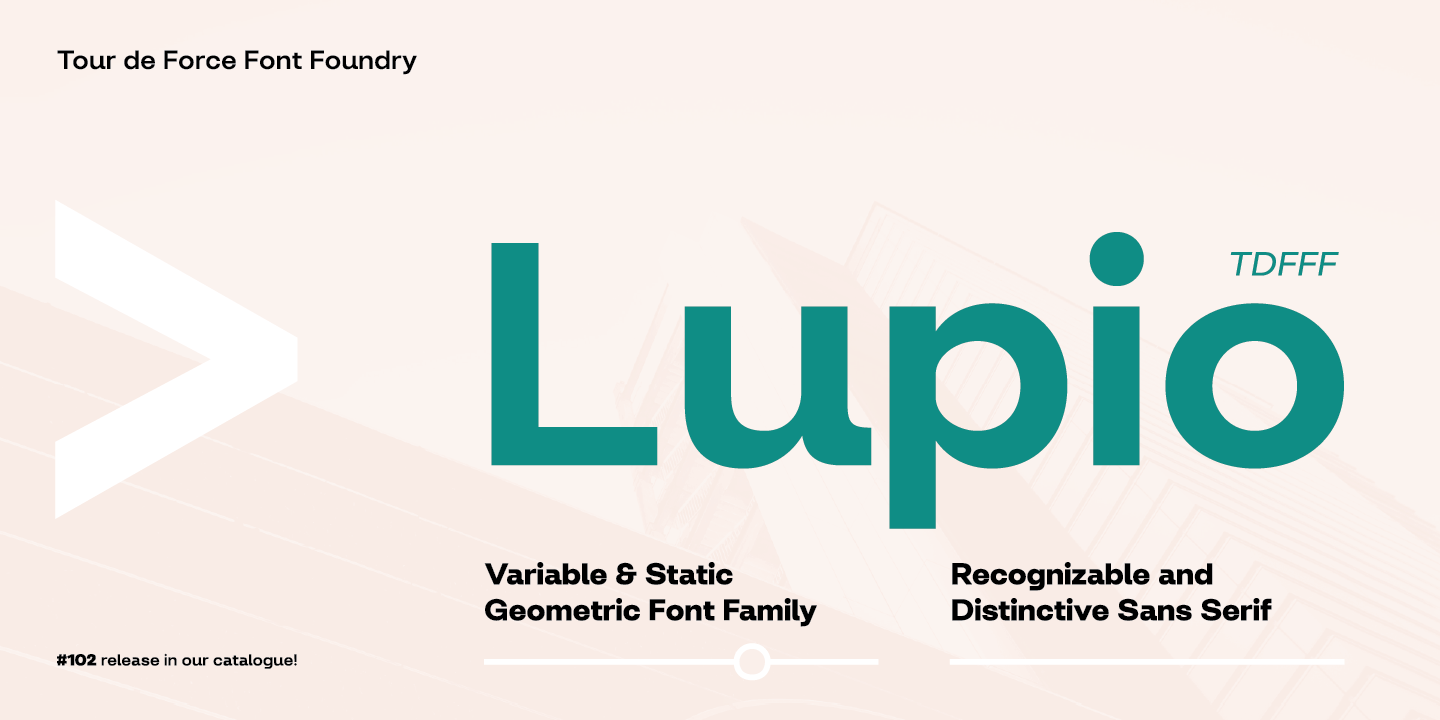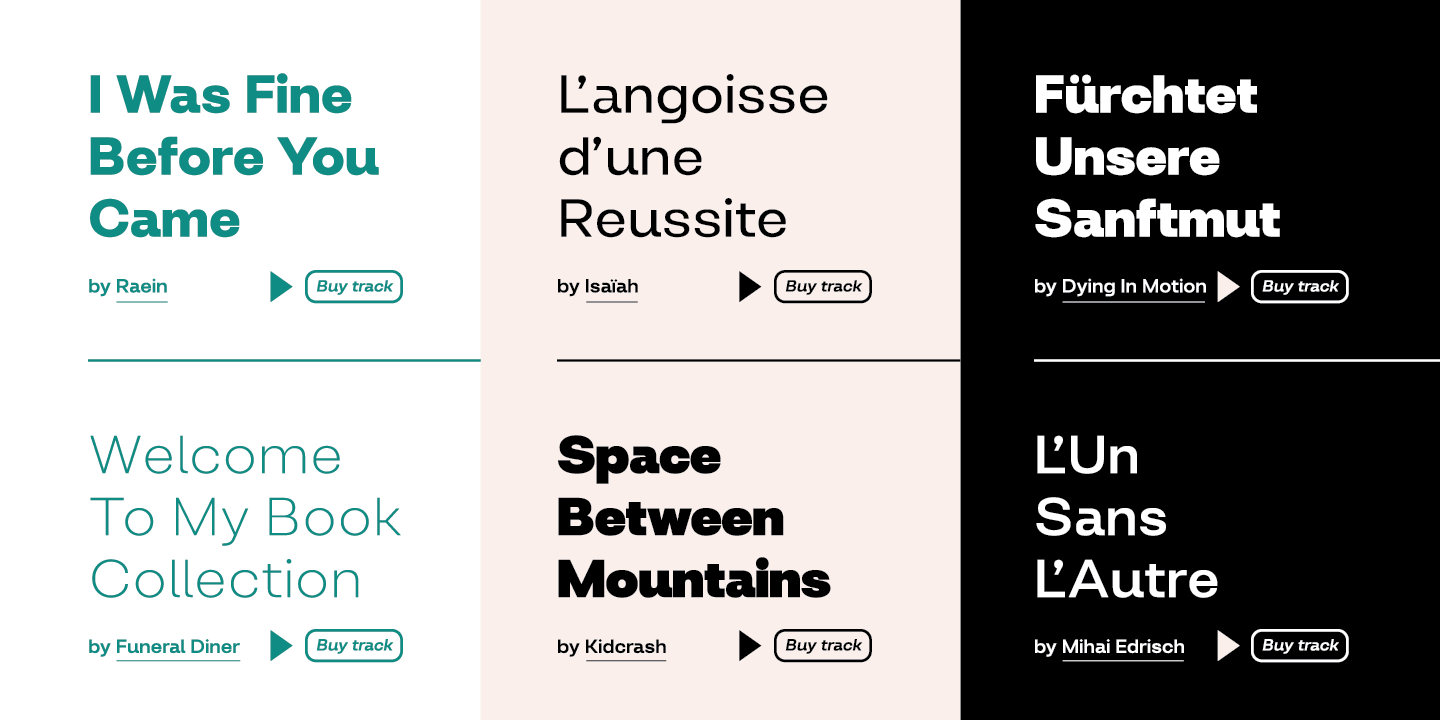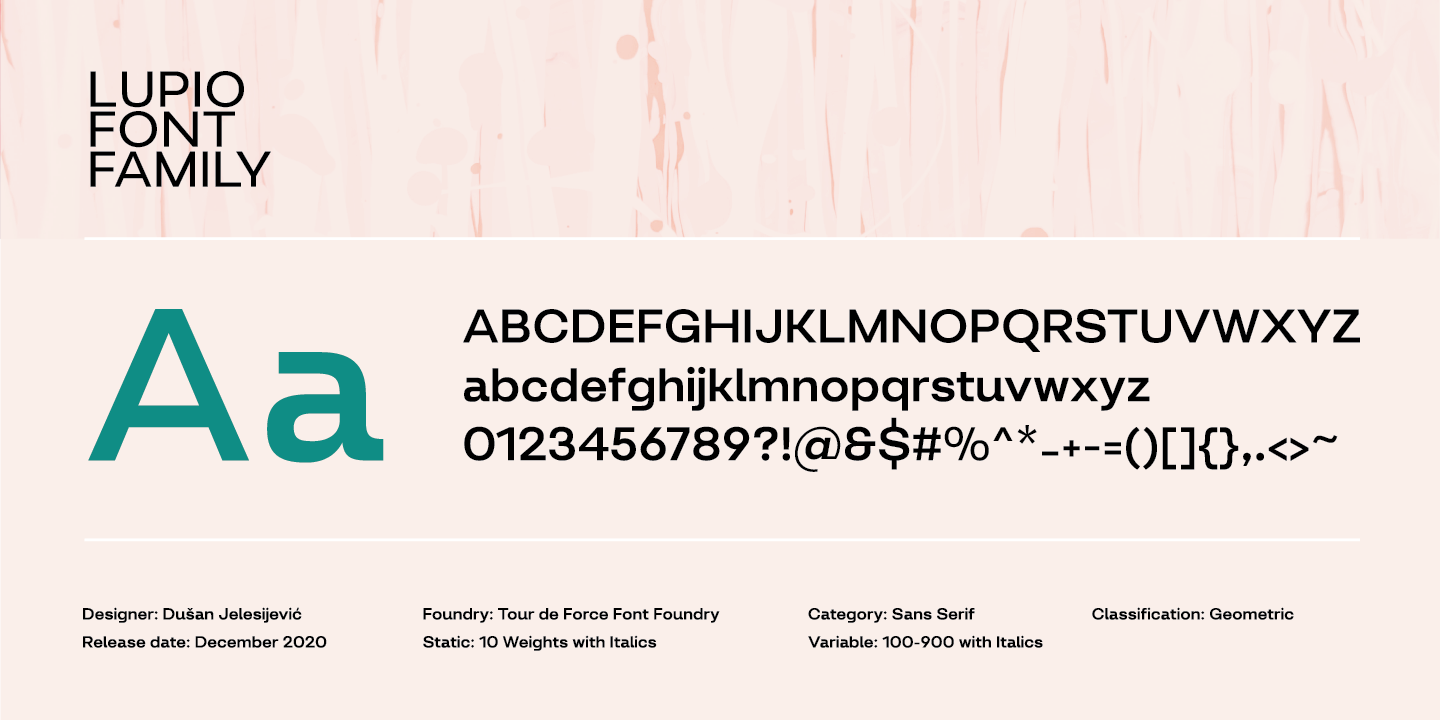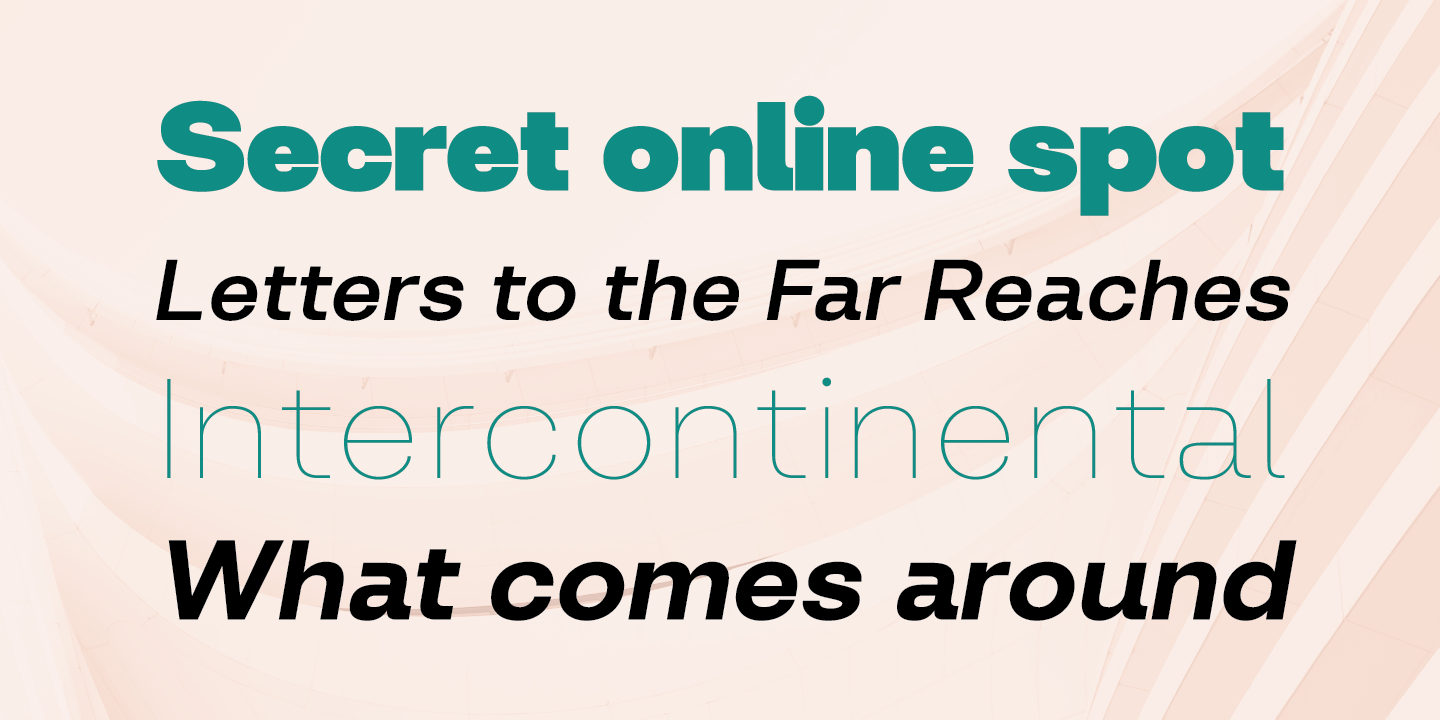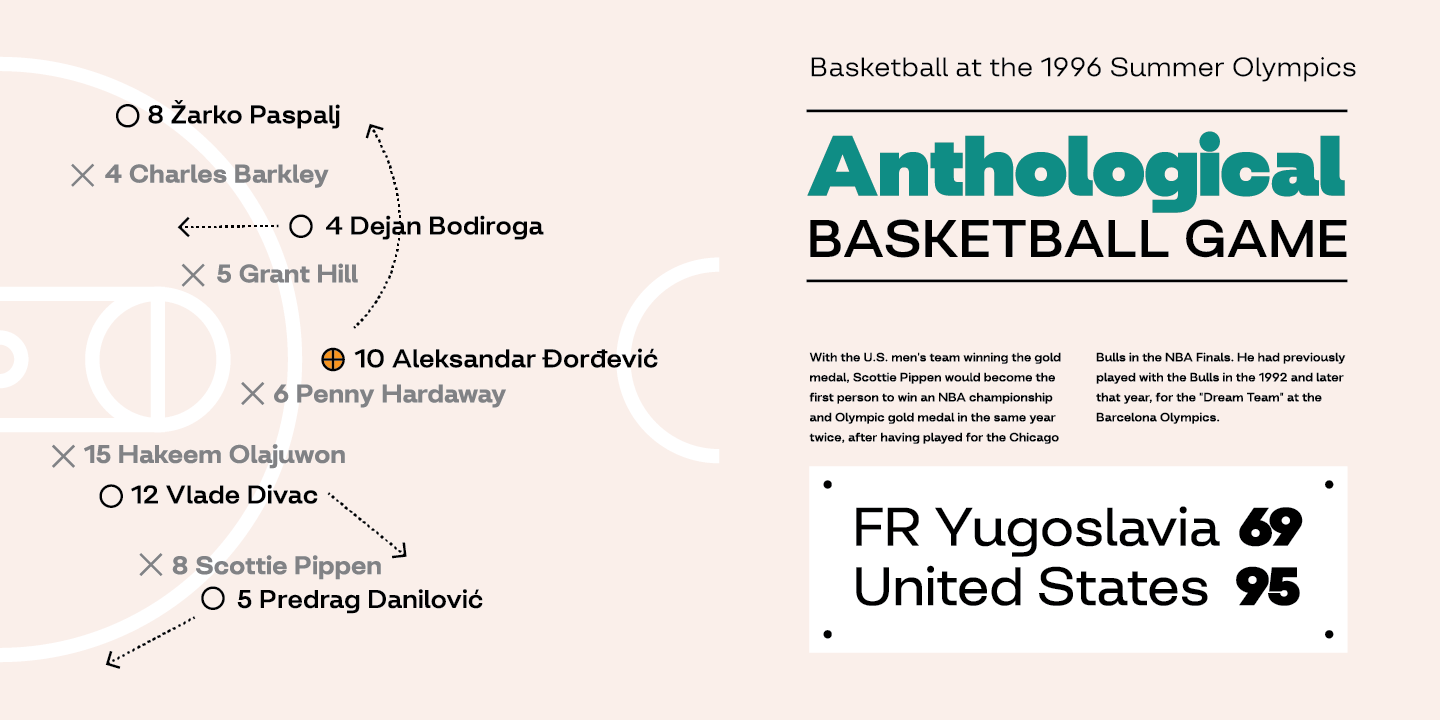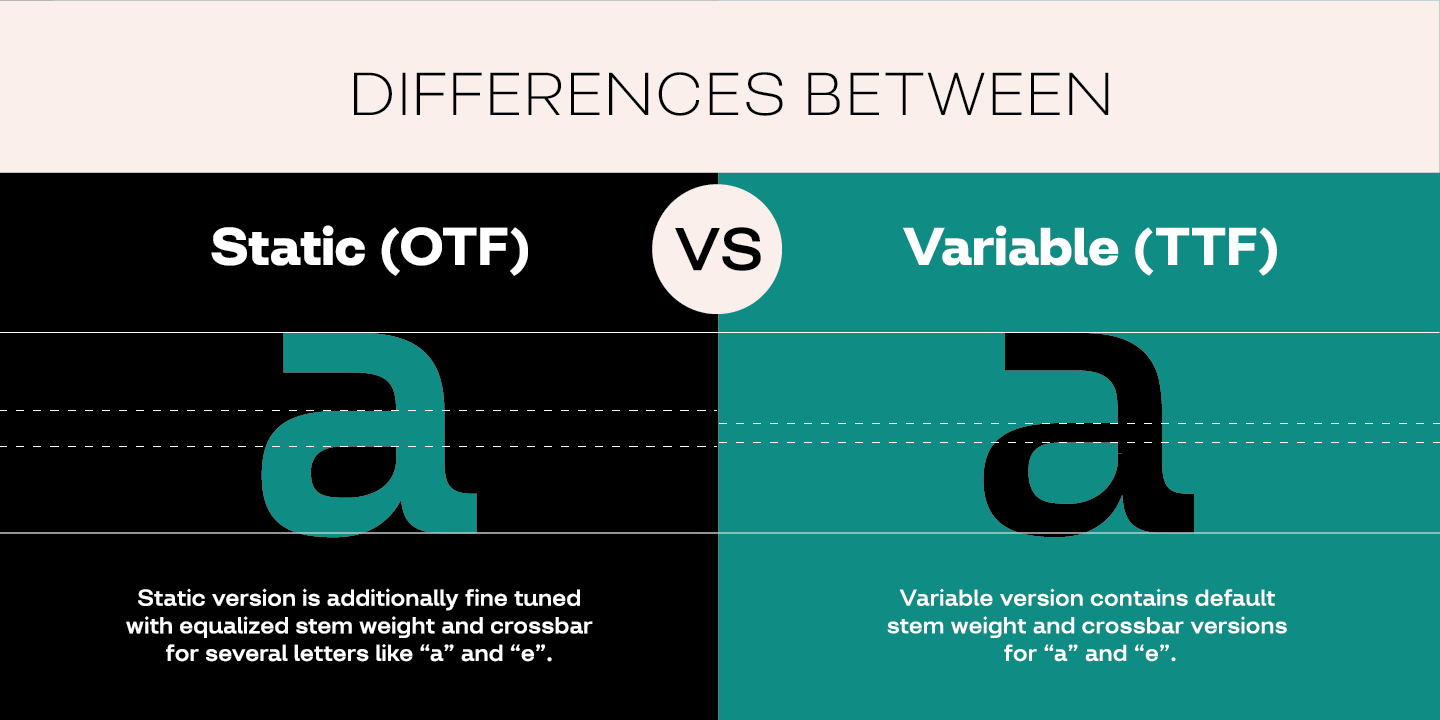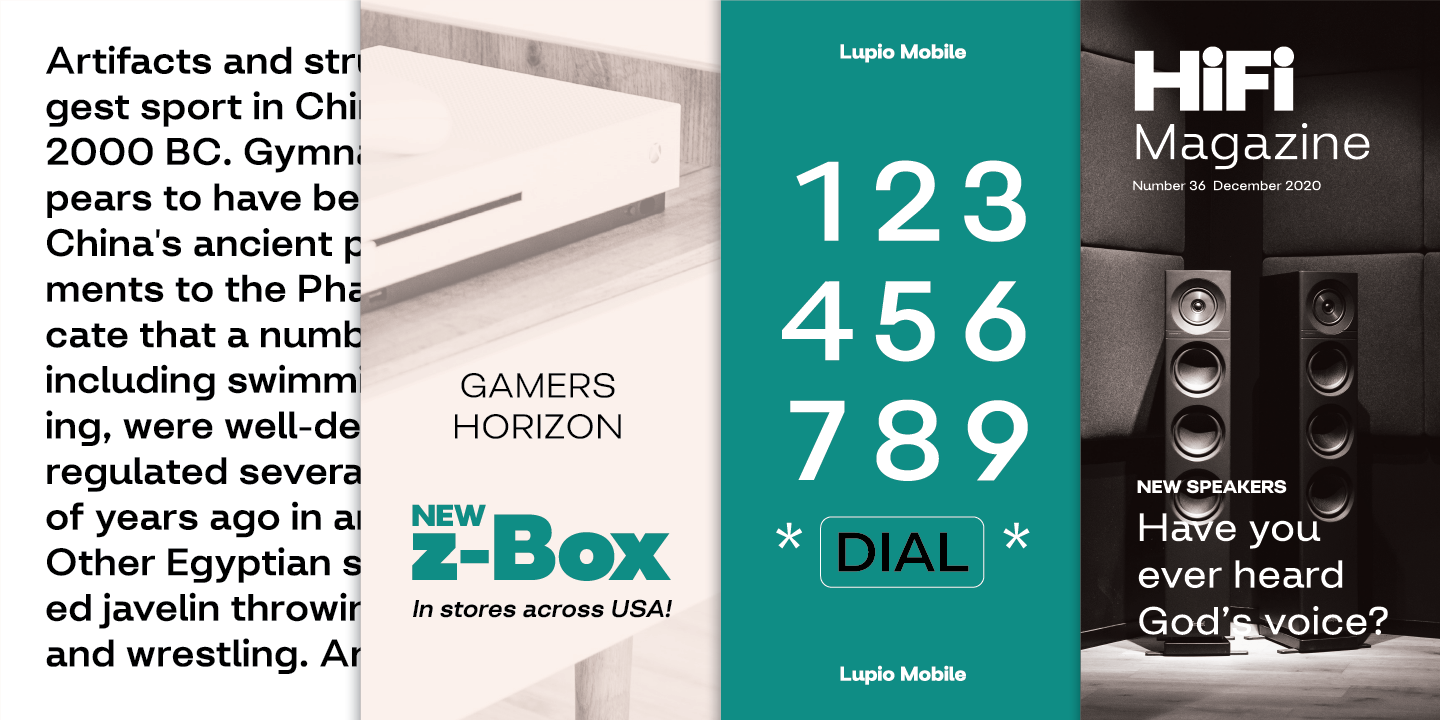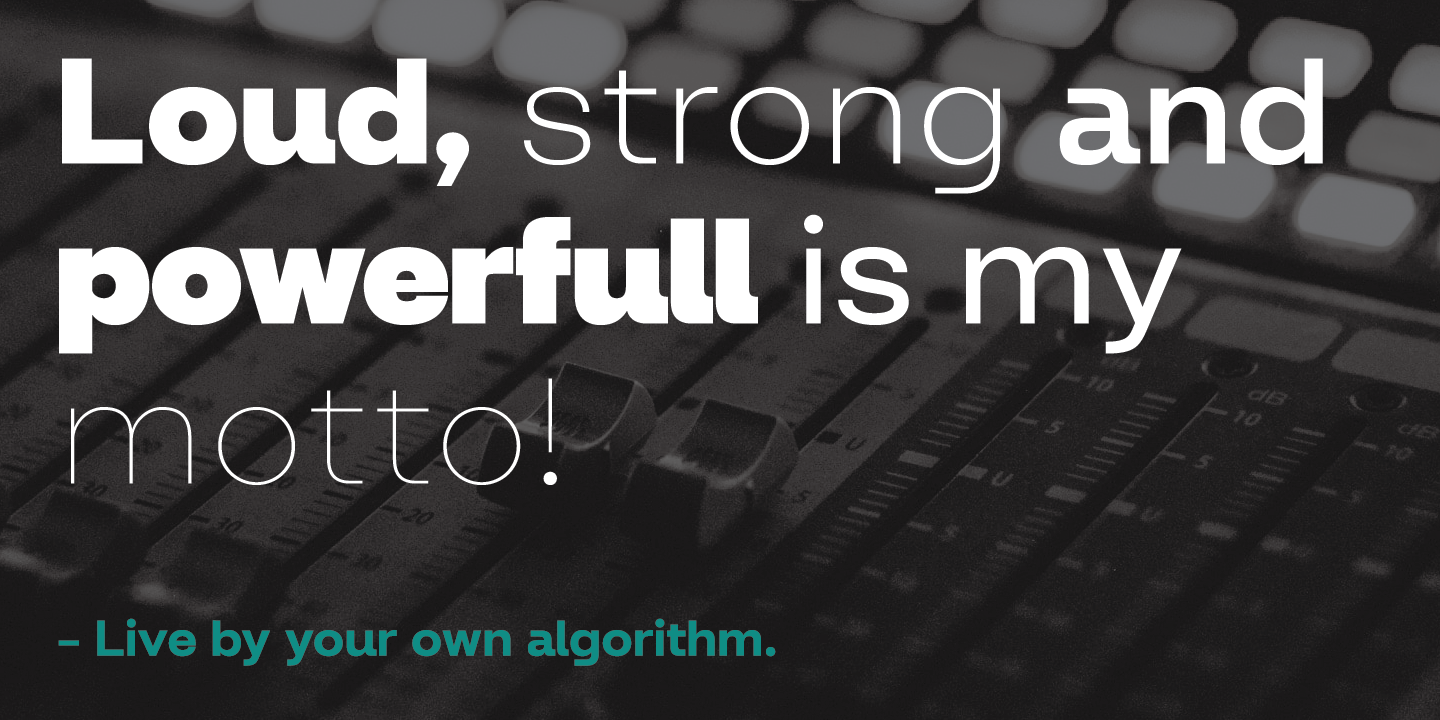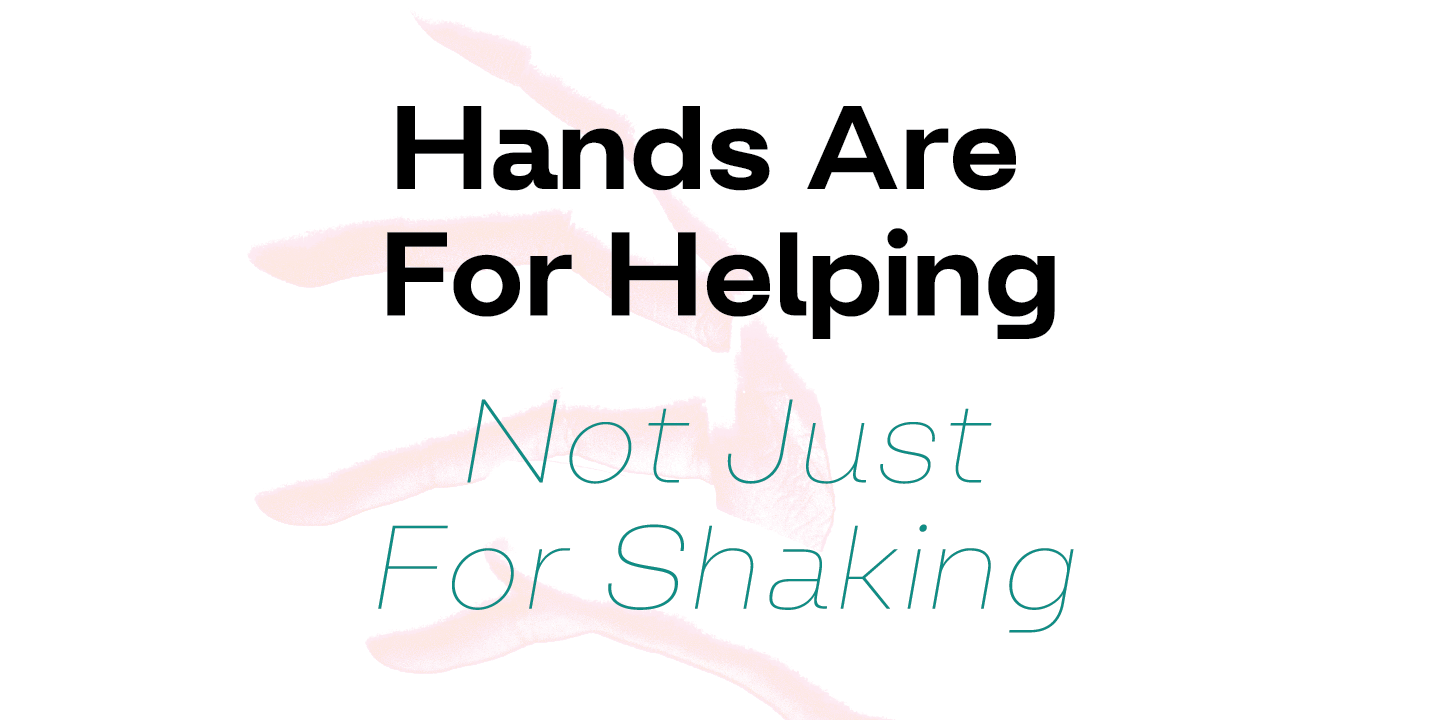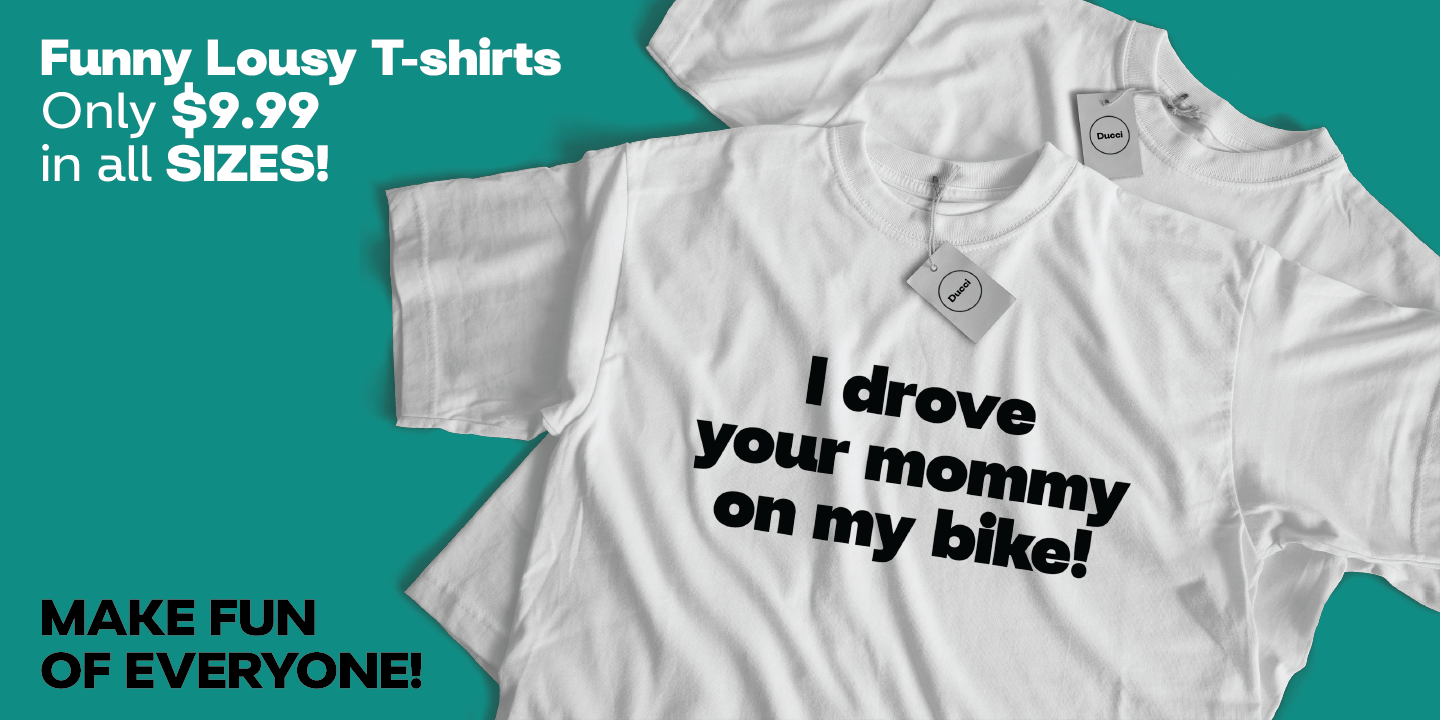
Lupio comes as 102nd family in our catalogue.
Lupio comes as 102nd family in our catalogue. It is geometric sans serif family with humanistic elements.
Lupio family contains variable and classic versions, so you can pick which one suits better for you and your project. Classic version is additionally fine tuned to get overall character look more equalised and uniform. When it comes to distinction – in sea of dozen other sans serif families, we made Lupio decently recognizable.
You won't mistaken him with others. Lupio is designed as working horse family, to be used in all possible situations – from websites to packages, editorial design and applications.